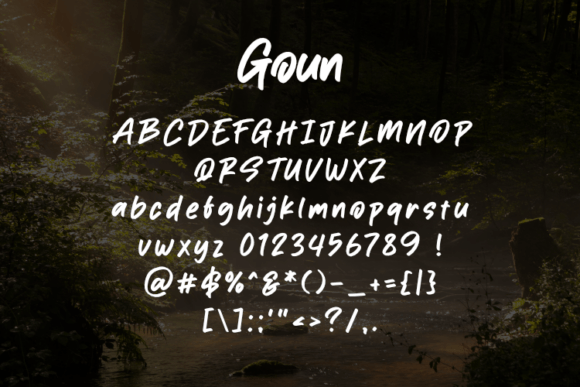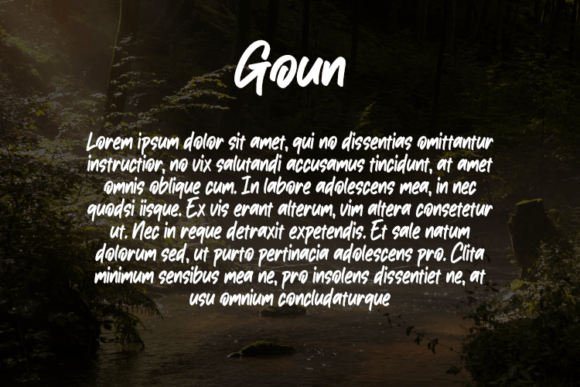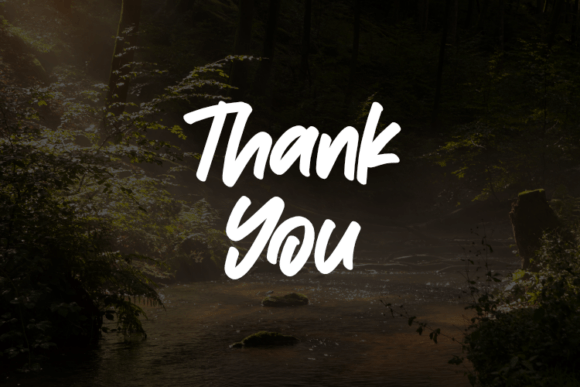
First Impressions: A Review of Goun Font
What I Love About Goun Font
- 💡 Unique appeal: Goun adds a compelling touch to any design, from clothing to product labels.
- 🎨 Creative freedom: Its distinctive style gives designers the flexibility to experiment with various looks.
While Goun Font is incredibly versatile, there are a few things to keep in mind:
- 🤔 Glyph overload: With so many glyphs and stylistic alternates, it can be overwhelming to navigate for beginners.
- ⚠️ Not ideal for body text: Goun’s unique style shines in headlines and titles but might not be the best choice for lengthy paragraphs.
The Story Behind Goun Font
Goun Font was inspired by the eclectic mix of urban fashion and high-end design. Its creator sought to blend modernity with a touch of quirkiness, making it perfect for designers looking to add a unique flair to their work. The name ‘Goun’ reflects a playful nod to the fusion of styles and cultures.
| Font Name | Goun Font |
| Author | Eric Kusuma |
Q: Does Goun Font support OpenType features?
A: Yes, Goun Font comes with a range of OpenType features, including stylistic alternates and glyphs, allowing for extensive customization.
Q: Is Goun Font easy to read?
A: Goun Font shines in headlines and titles. While it’s unique and stylish, it might not be the best choice for lengthy text due to its distinctive design.